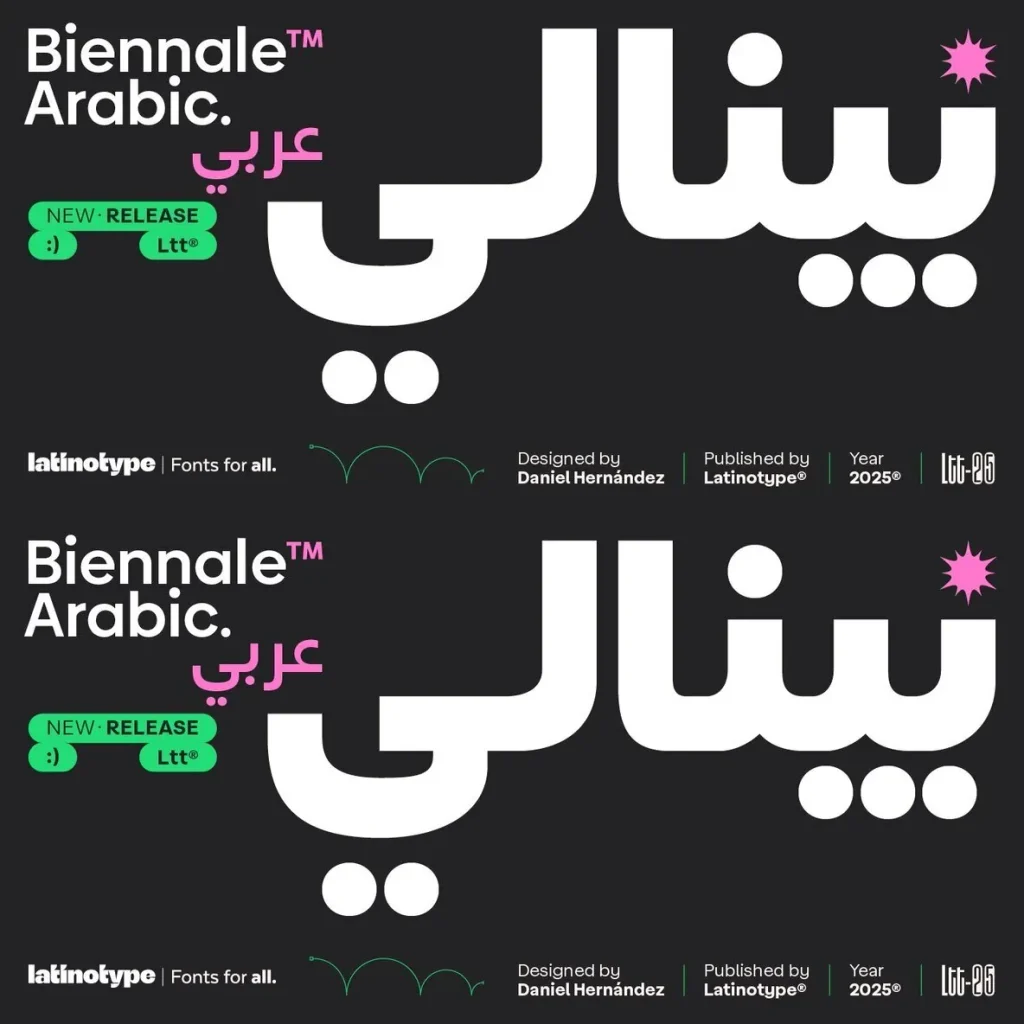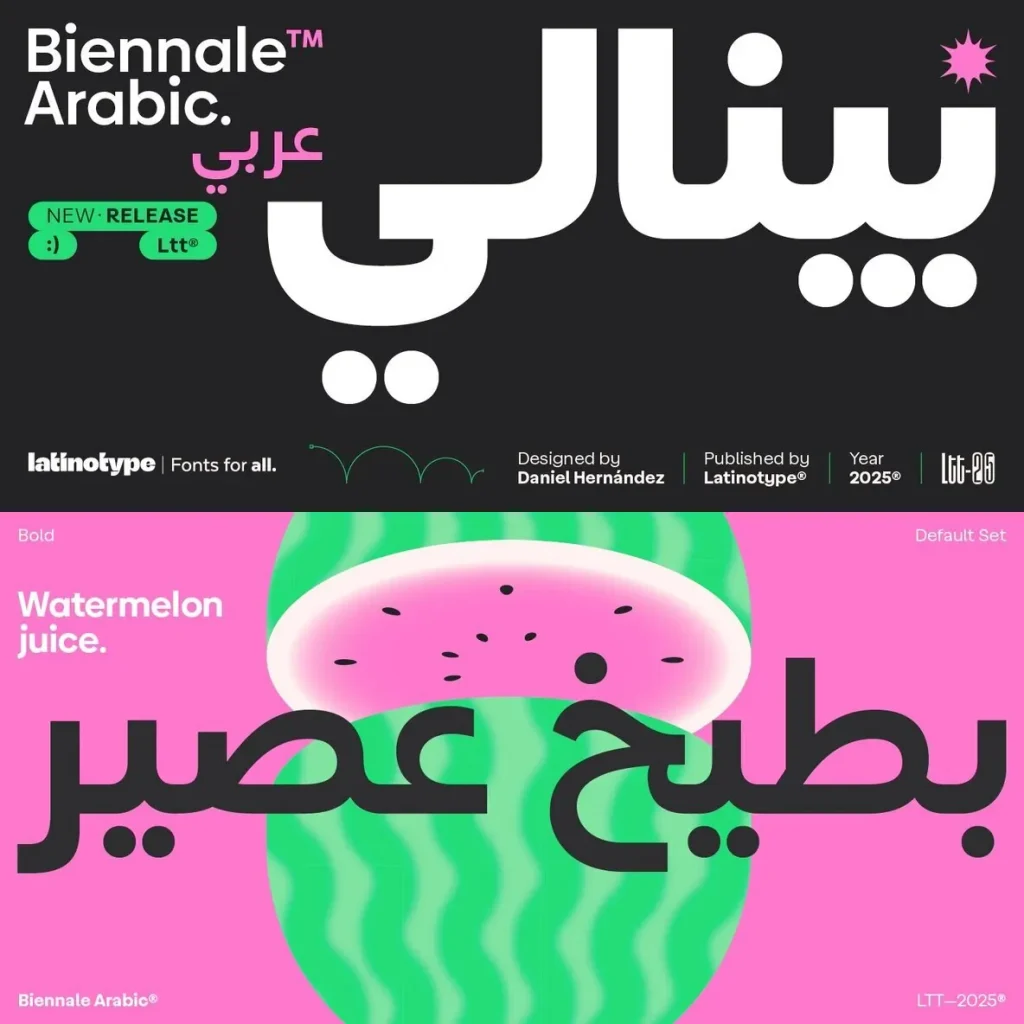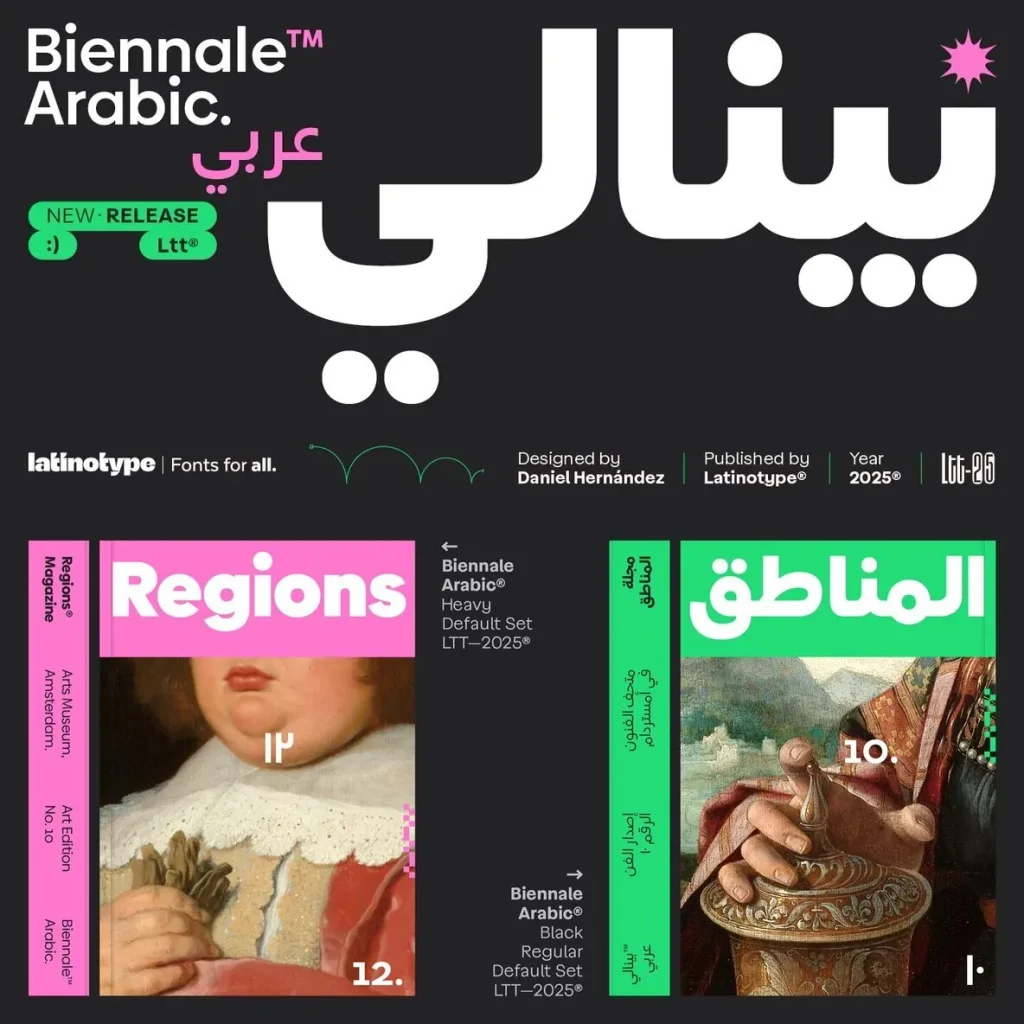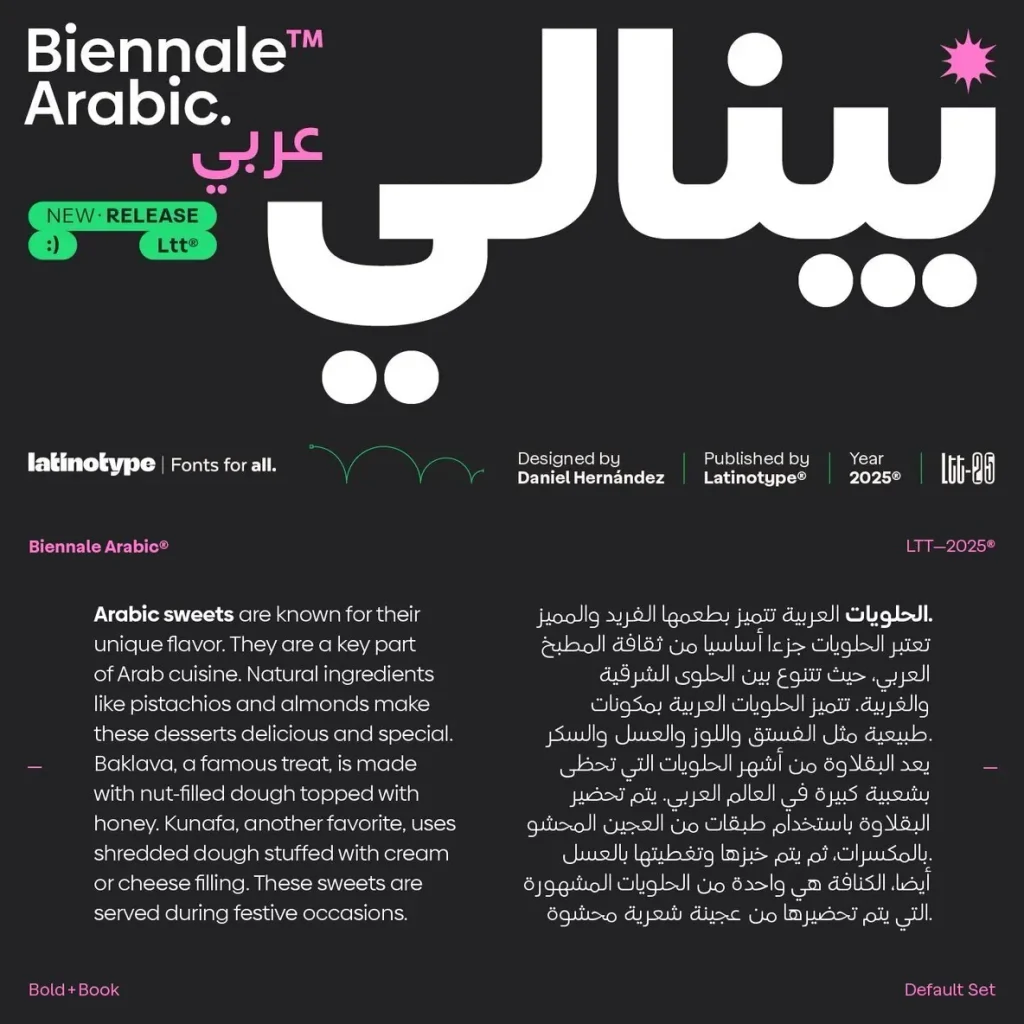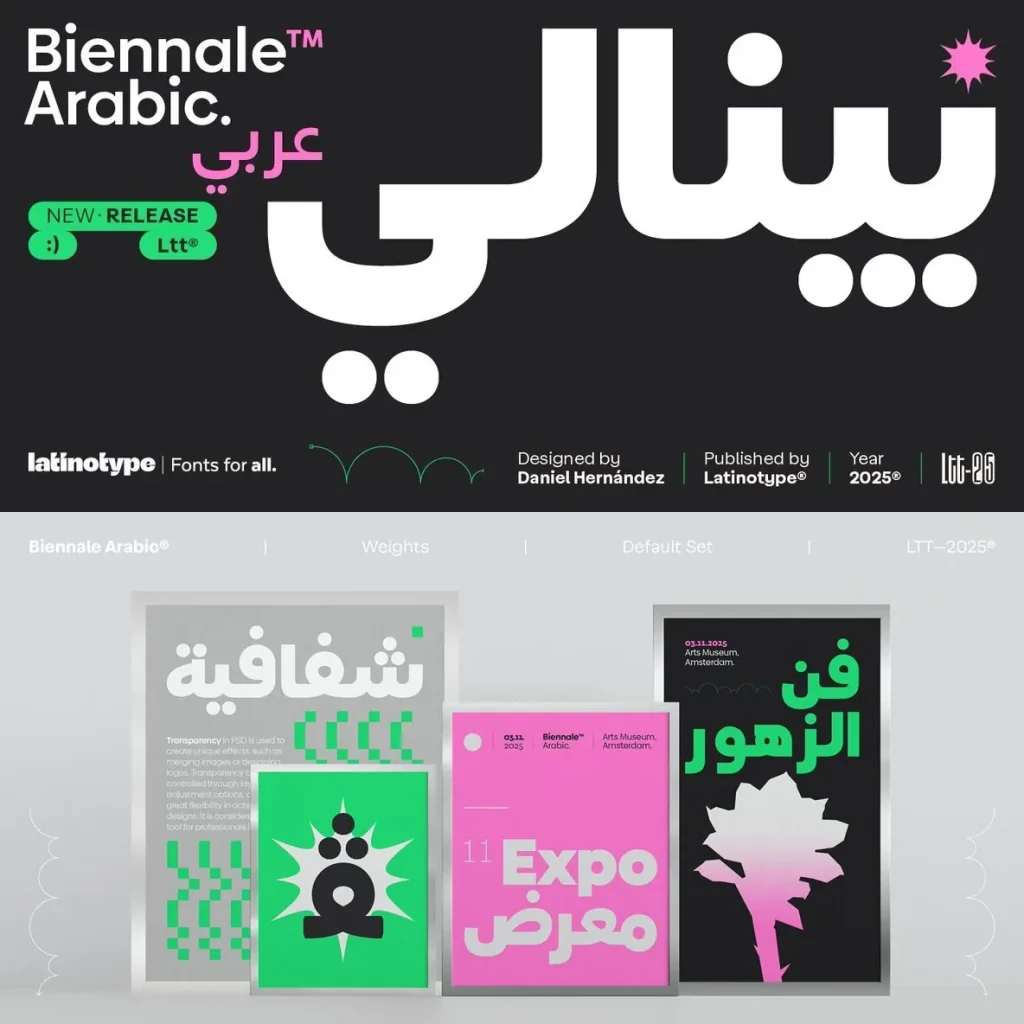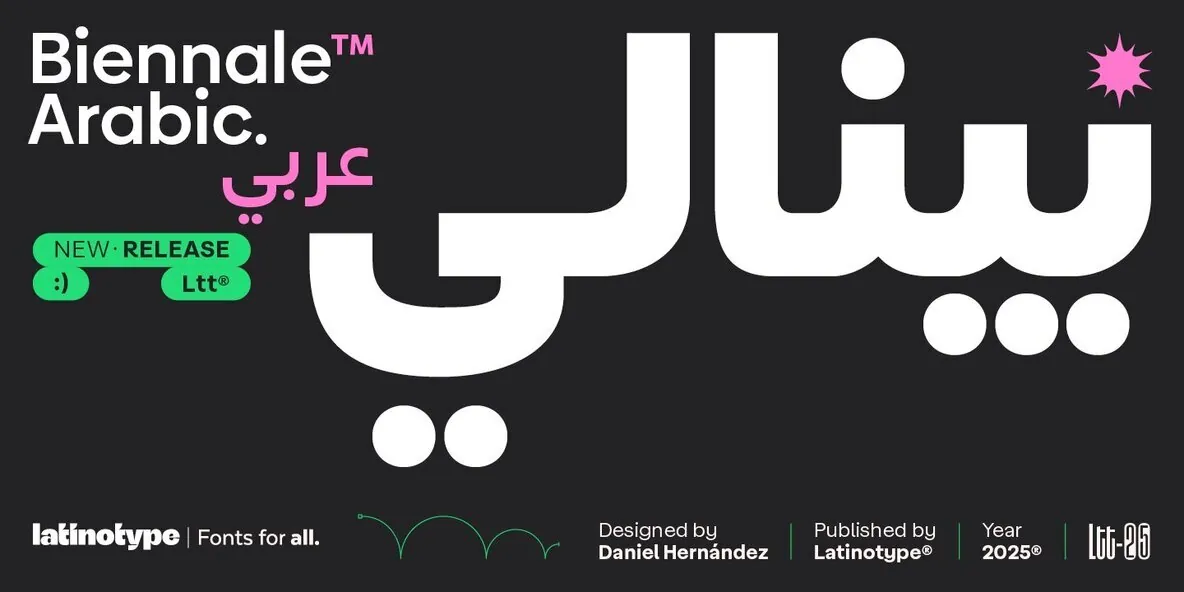
Biennale Arabic: Geometric Precision Meets Arabic Script
Biennale introduces a new dimension to Arabic typography, merging the structural clarity of geometric forms with the expressive qualities of Arabic calligraphy. Every character is shaped to maintain optimal legibility, creating a reading experience that feels both fluid and precise. This careful harmony makes Biennale suitable for a range of applications, from branding to editorial projects.
Designed to excel in modern layouts, Biennale’s Arabic extension adapts seamlessly to both digital and print environments. Its contemporary geometry provides a distinctive voice without sacrificing the traditional nuances essential to Arabic script. The result is a typeface that feels current, versatile, and expertly crafted for professionals seeking clean typographic solutions.
Main Features
Geometric and contemporary design principles
Balanced integration of Arabic calligraphic tradition
Outstanding legibility for diverse media
Consistent forms for harmonious typesettingd